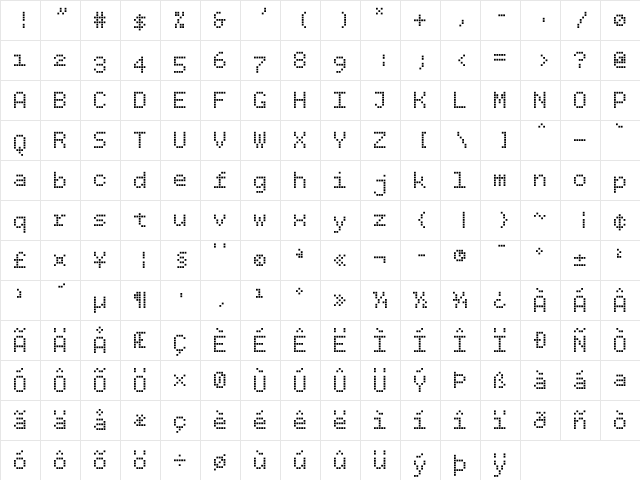
BPdotsSquares Regular
Design Context for BPdotsSquares Typeface
BPdotsSquares celebrates the constraints of early digital type, turning pixel geometry into a distinctive and immediately recognisable style.
Well-suited to indie game interfaces, retro computing aesthetics, and pixel art-adjacent design work.
Pro Tip: Use BPdotsSquares at sizes that align with its pixel grid for the sharpest rendering — scaling to non-integer multiples can introduce unwanted blur.